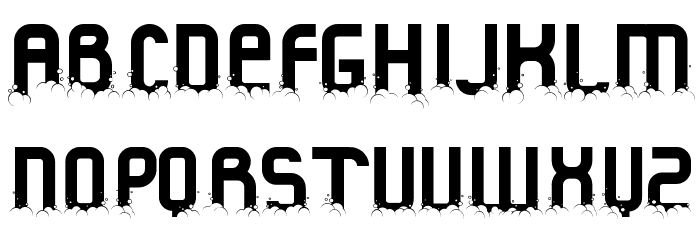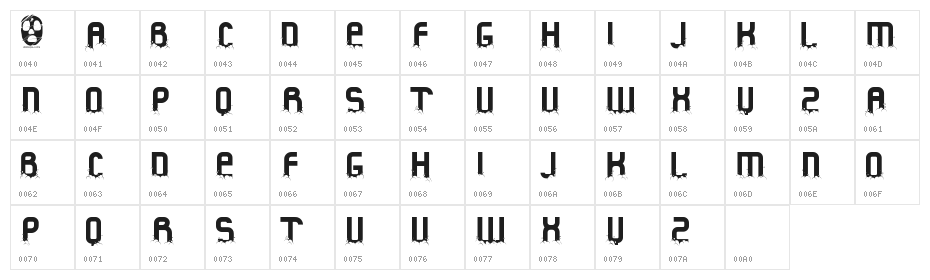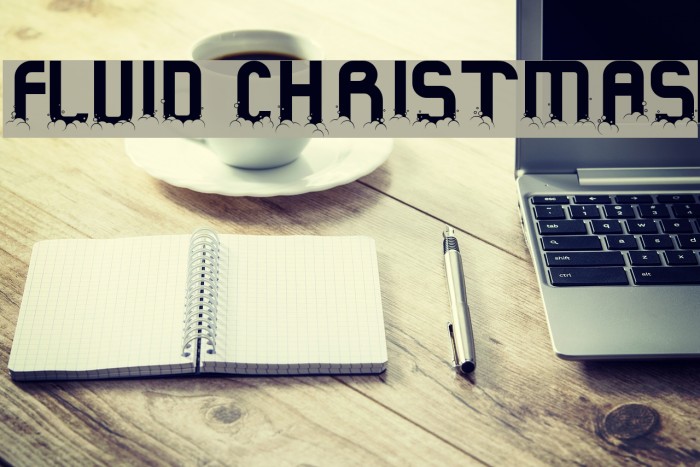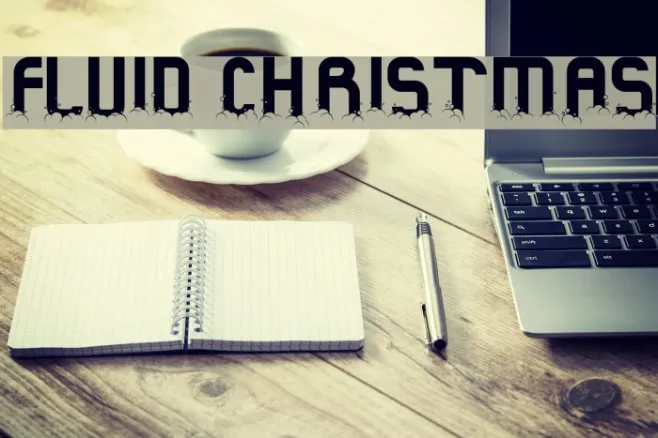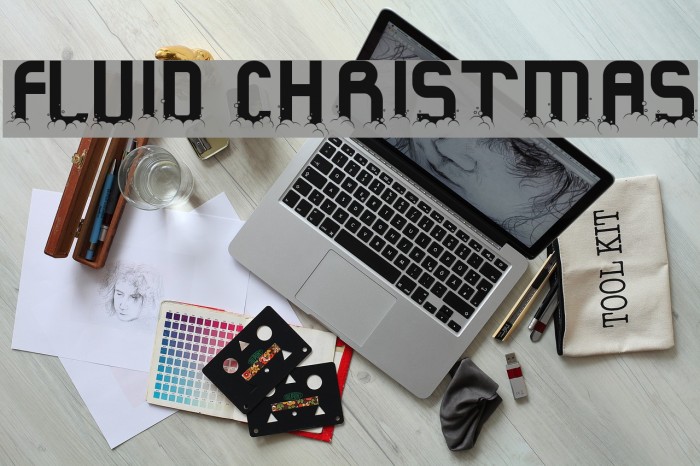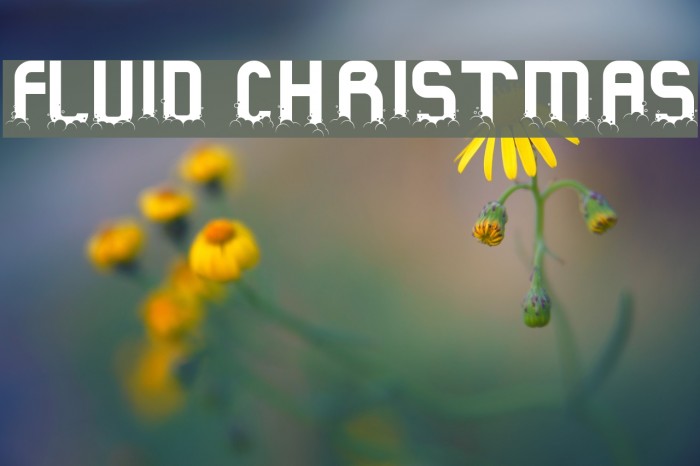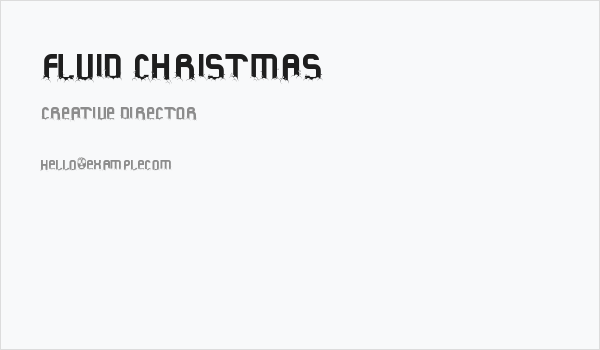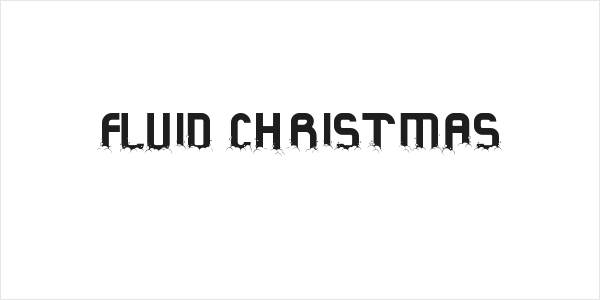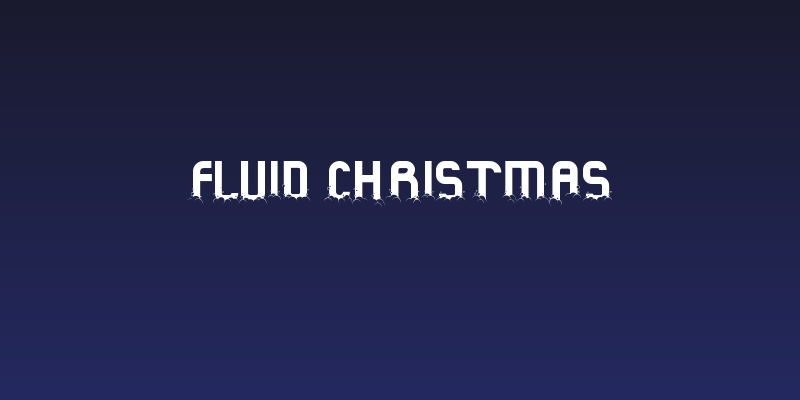
Fluid Christmas Font
Fluid Christmas Description
This font features a unique and playful design, incorporating elements that resemble dripping liquid or icicles, giving it a festive and whimsical appearance. The characters are bold and have a distinct blocky structure, with each letter adorned with decorative elements that add a sense of movement and fluidity. The overall design is eye-catching and perfect for creating a festive atmosphere, making it ideal for holiday-themed projects. The uppercase letters are consistent in height and width, providing a uniform look across the alphabet. The font's decorative style makes it stand out, while still maintaining readability.
| Proposed Projects | Ideal for holiday cards, festive banners, event invitations, and seasonal marketing materials. |